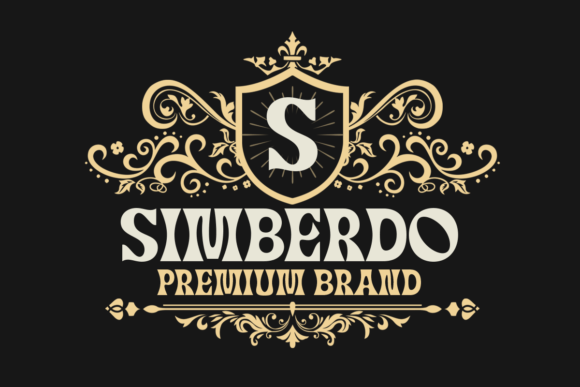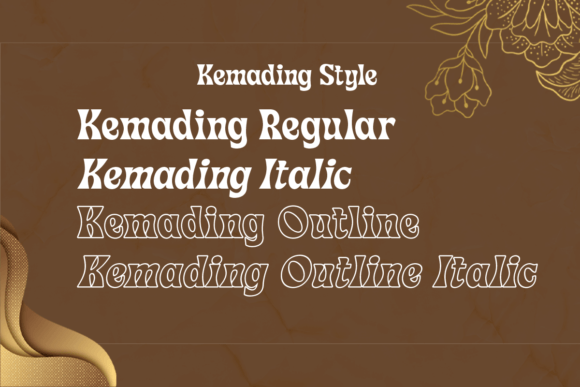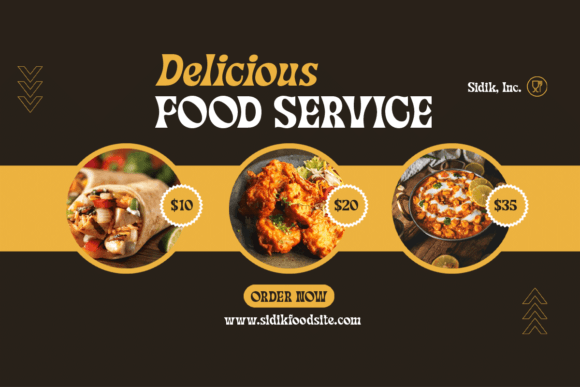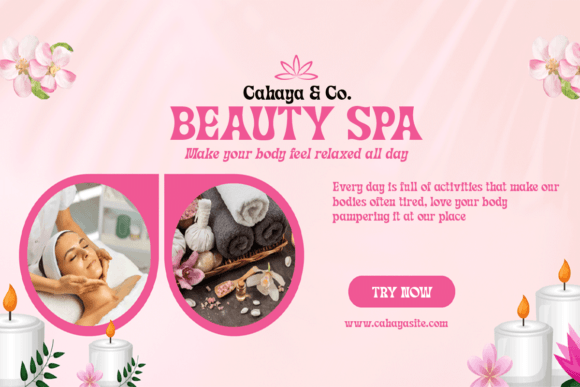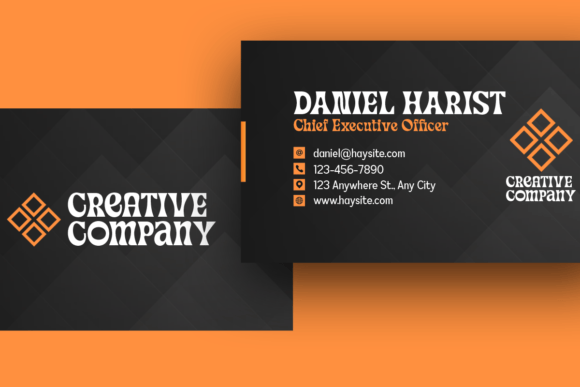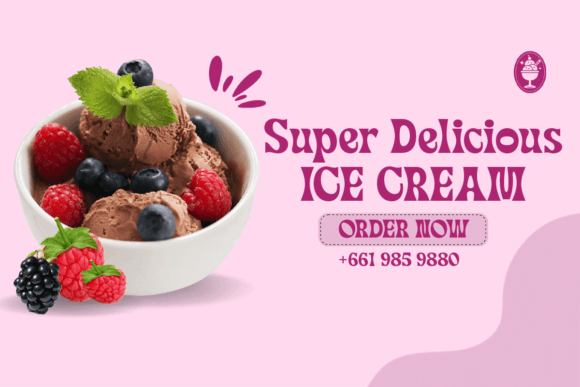
Introduction to Kemading Font
Have you ever been working on a creative project, only to feel like something’s missing that special touch? Maybe you’re designing a logo for a client, or crafting a poster for a fun event. Whatever the case, we’ve all been there – searching for that perfect font to bring our vision to life. For designers looking to add a touch of fun nostalgia to their projects, we’ve got just the thing: the Kemading Font.
This retro serif font is a game-changer, with its unique and energetic design making it perfect for everything from logos and branding to stickers and crafts. With its PUA encoding, you’ll have access to all of the amazing glyphs and ligatures at your fingertips, making it a valuable resource for any designer looking to add a high-quality, unique touch to their work.
Key Features of Kemading Font
- High-quality, unique font design ideal for creative projects, offering a distinctive aesthetic.
- Perfect for creative projects requiring a unique, eye-catching font, such as logos, typography-based art, or digital graphics.
Honest Review: Kemading Font
As a designer, I’m always on the lookout for new design resources to elevate my creative project. Recently, I stumbled upon the Kemading Font, and I’m excited to share my honest review.
What works well about the Kemading Font is its sleek and modern design. It’s perfect for any high-quality design project that requires a touch of sophistication. The font is also available for free download, which is a definite bonus. I appreciate how easy it is to use, and the transparent background makes it easy to layer with other design elements.
- ✨ Modern and sleek design
- ✨ Transparent background for easy layering
However, there are a few limitations to consider. The Kemading Font is a relatively new design resource, and while it’s well-crafted, it may not be as extensive as some other fonts on the market. Additionally, the font is limited to a single weight, which may not be ideal for designers who prefer a range of weights and styles.
- ⚠️ Limited font weights
- ⚠️ Not as extensive as other fonts on the market
Overall, I’m impressed with the Kemading Font, and I think it’s a great addition to any designer’s toolkit. While it may have a few limitations, its modern design and free download make it a great resource for any creative project.
Tips for Getting the Most Out of Kemading Font
Use Kemading Font for creative projects that require a high quality, unique design.
Experiment with different font sizes and colors to create a visually appealing design.
Combine Kemading Font with other design resources to create a cohesive and professional look.
Kemading Font is perfect for:
Branding and logo design
Infographics and data visualization
Marketing materials and brochures
Web design and development